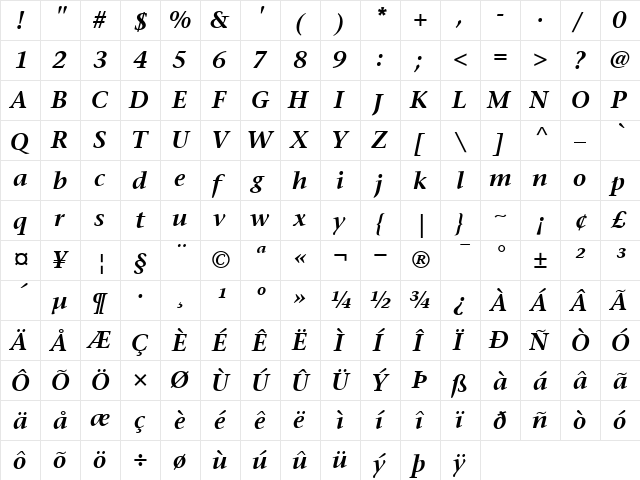
ITCStoneSerif-SemiBold Semi BoldItalic Font Preview
Design Context for ITCStoneSerif-SemiBold Typeface
ITCStoneSerif-SemiBold carries the refined structure of traditional serif typography, with bracketed terminals and considered proportions that communicate credibility and craft. The slanted form adds forward momentum and visual energy. The heavy weight commands attention and anchors typographic hierarchies.
Pro Tip: Use ITCStoneSerif-SemiBold for editorial body copy and considered headline work. Pair with a neutral sans for UI elements or captions to create a classic hierarchy.